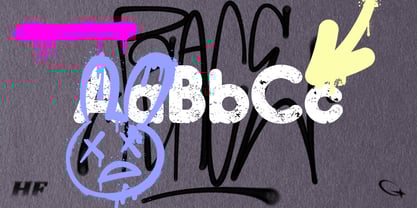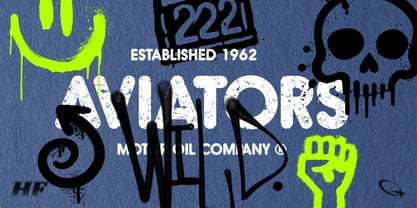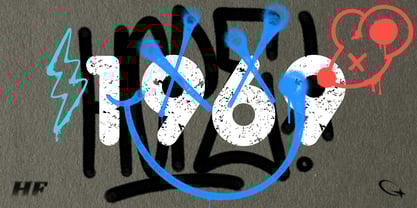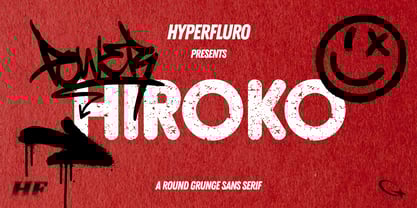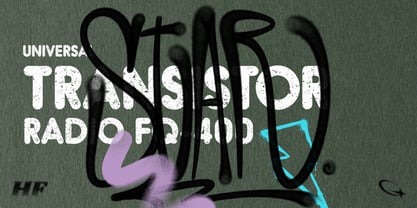
Hiroko™
von HyperFluro
Die Schriftfamilie Hiroko wurde von Alex Haigh entworfen und von HyperFluro veröffentlicht. Hiroko enthält 1 Stile.
Hiroko is a remix of the multi-functional Hiruko typeface, with a bigger, bolder look and extra textured surface. Hiroko takes the functionality of its predecessor and turns it towards making an impact, so it does more than pass the message along, it makes it stand out and ensures that people read it. Hiroko comes with support for a number of languages, and has a finely crafted set of both upper and lowercase characters, round and friendly for a positive tone.